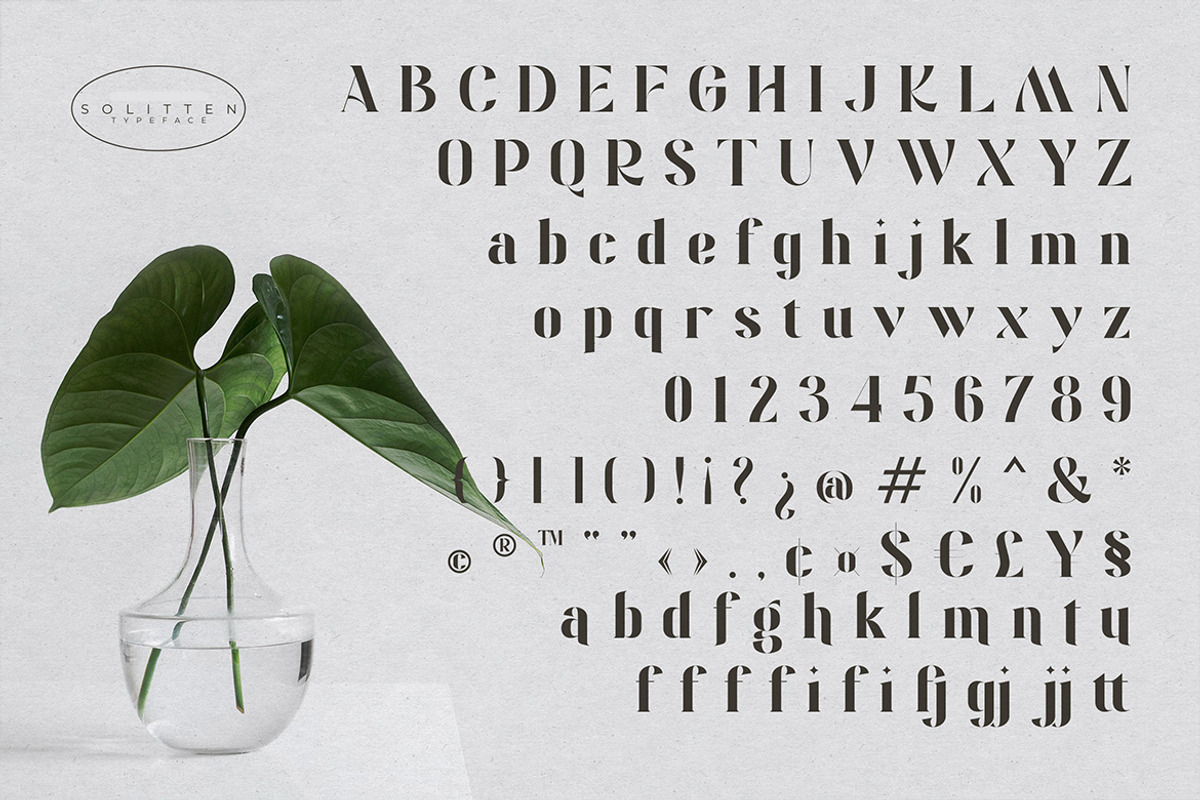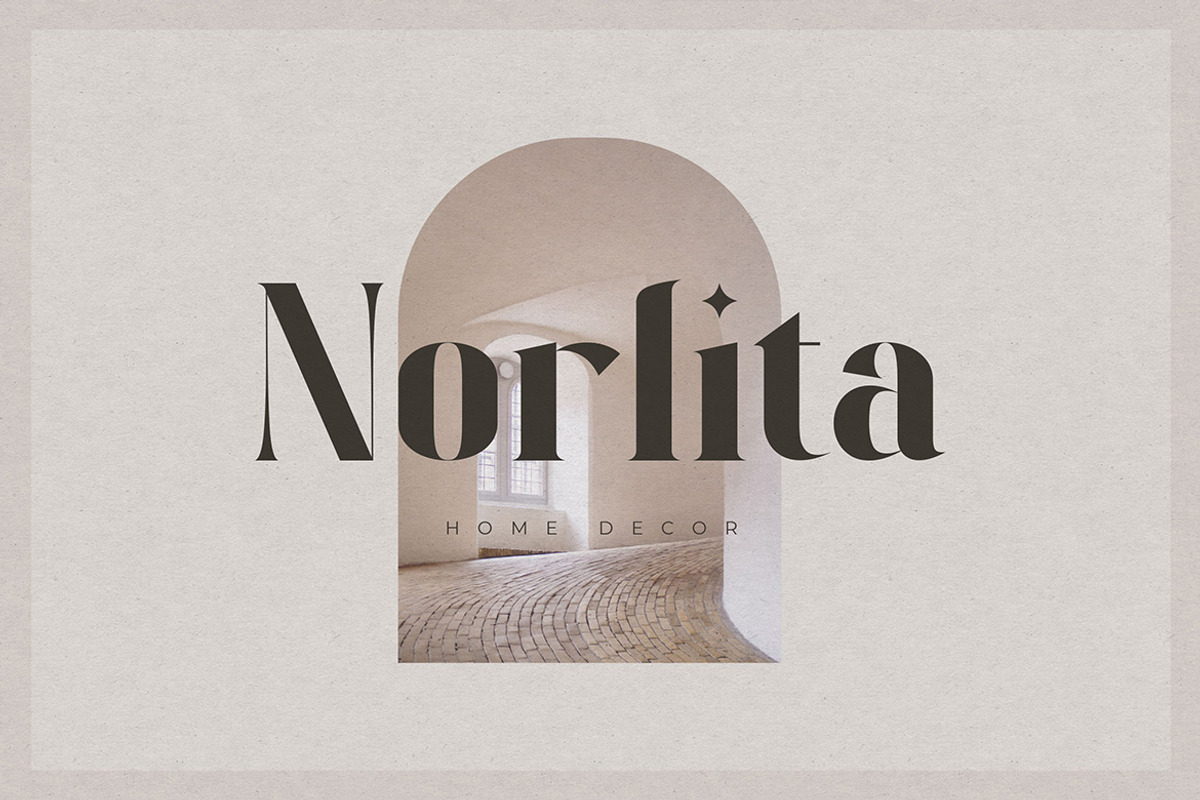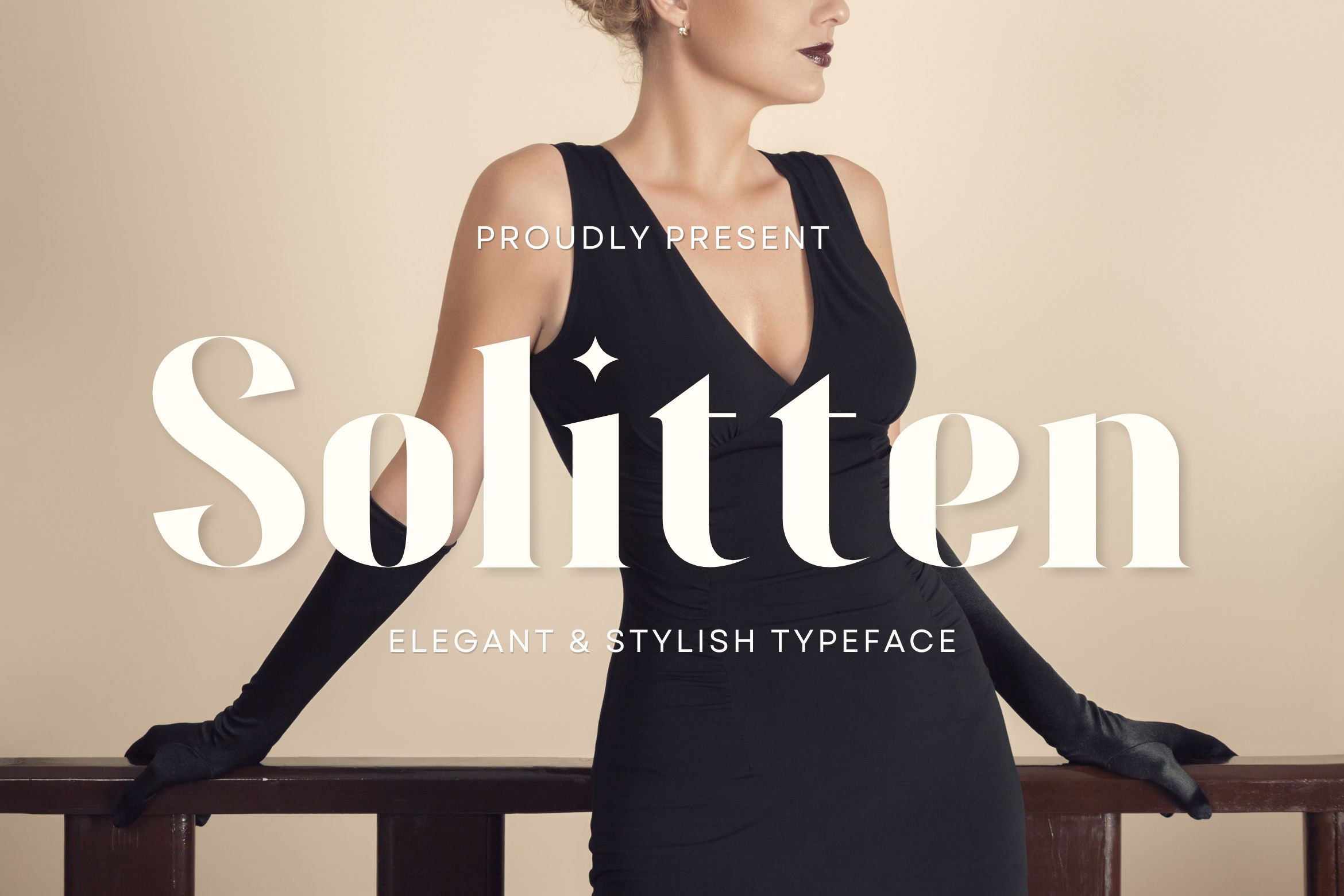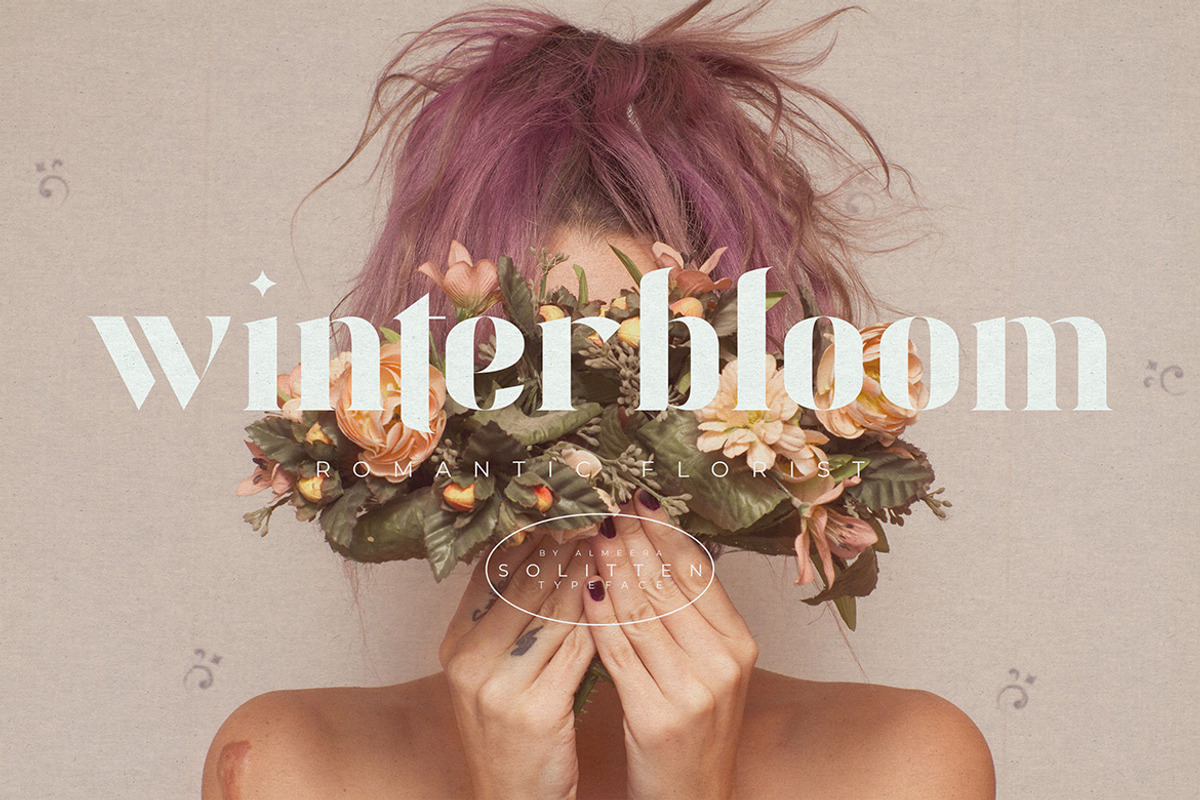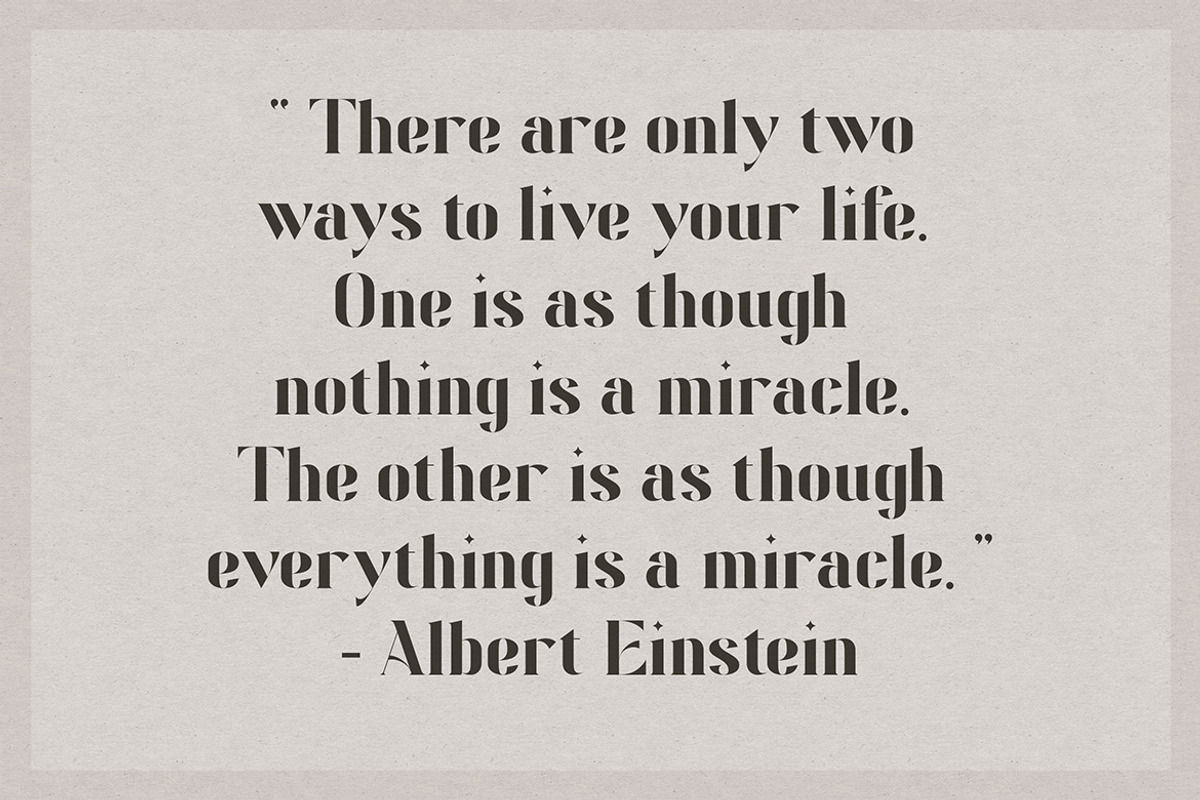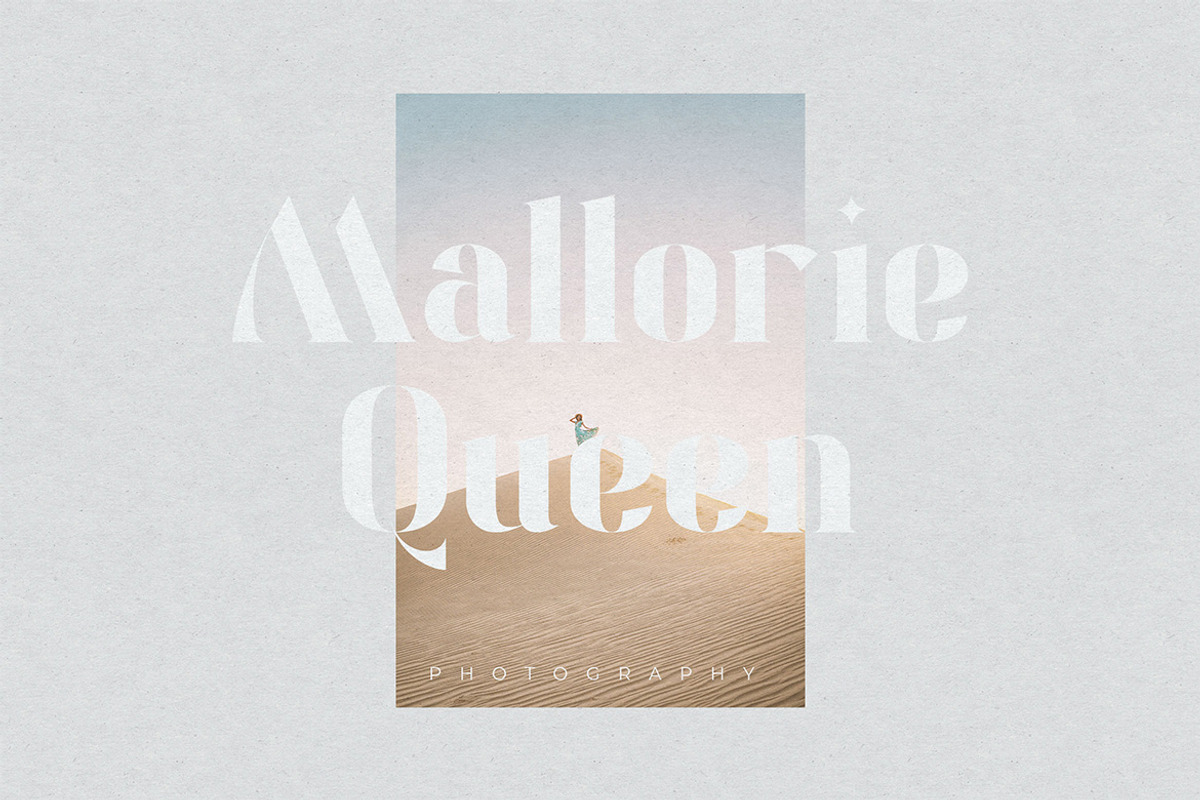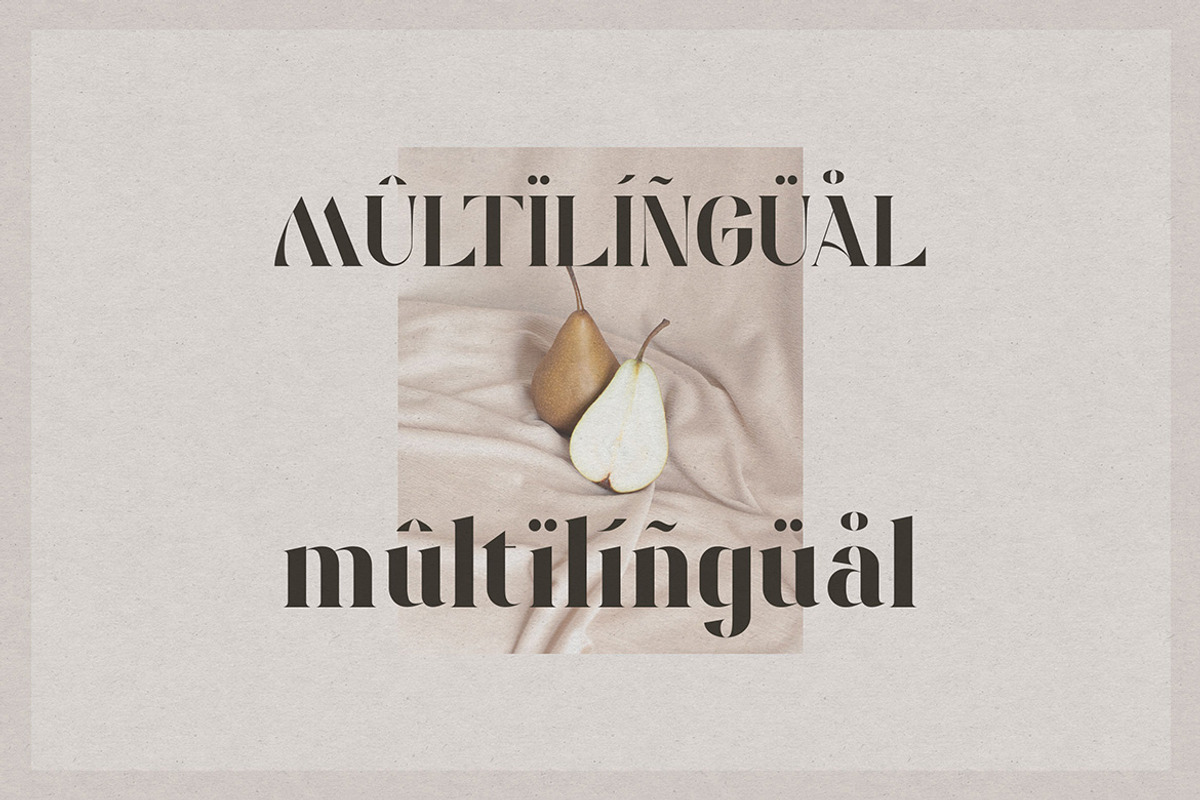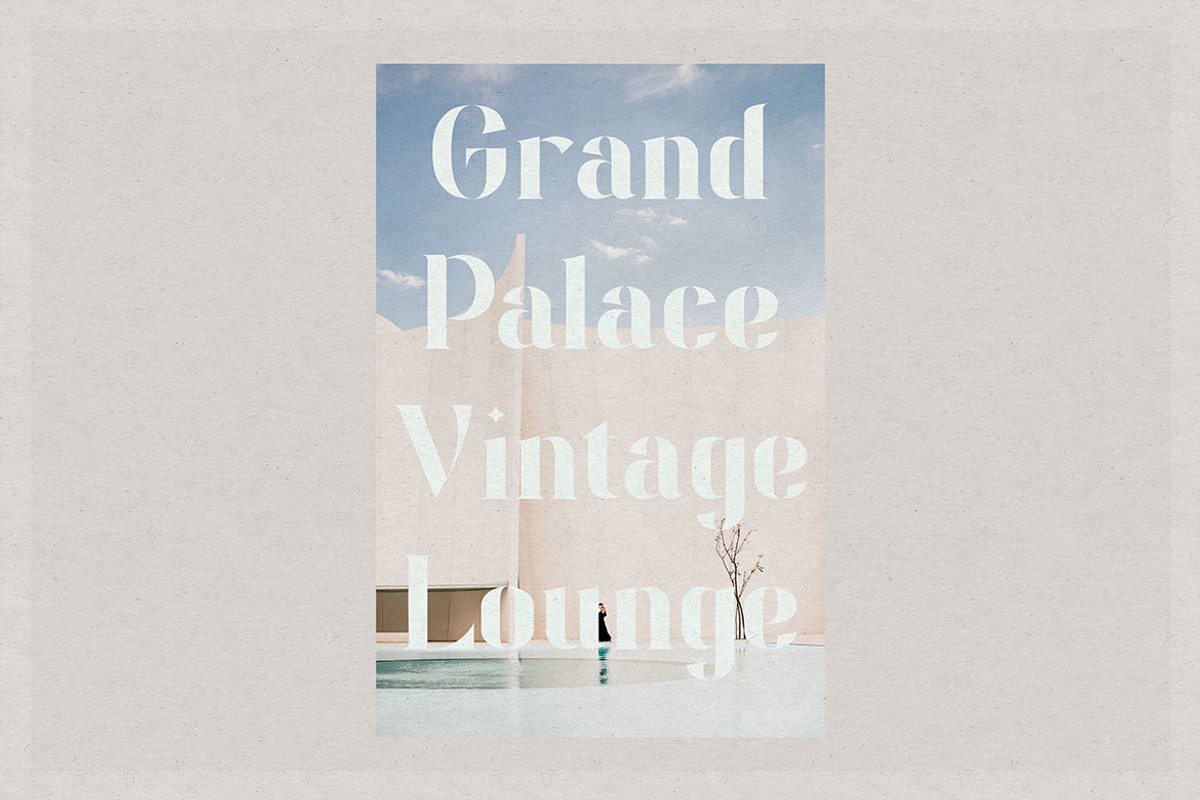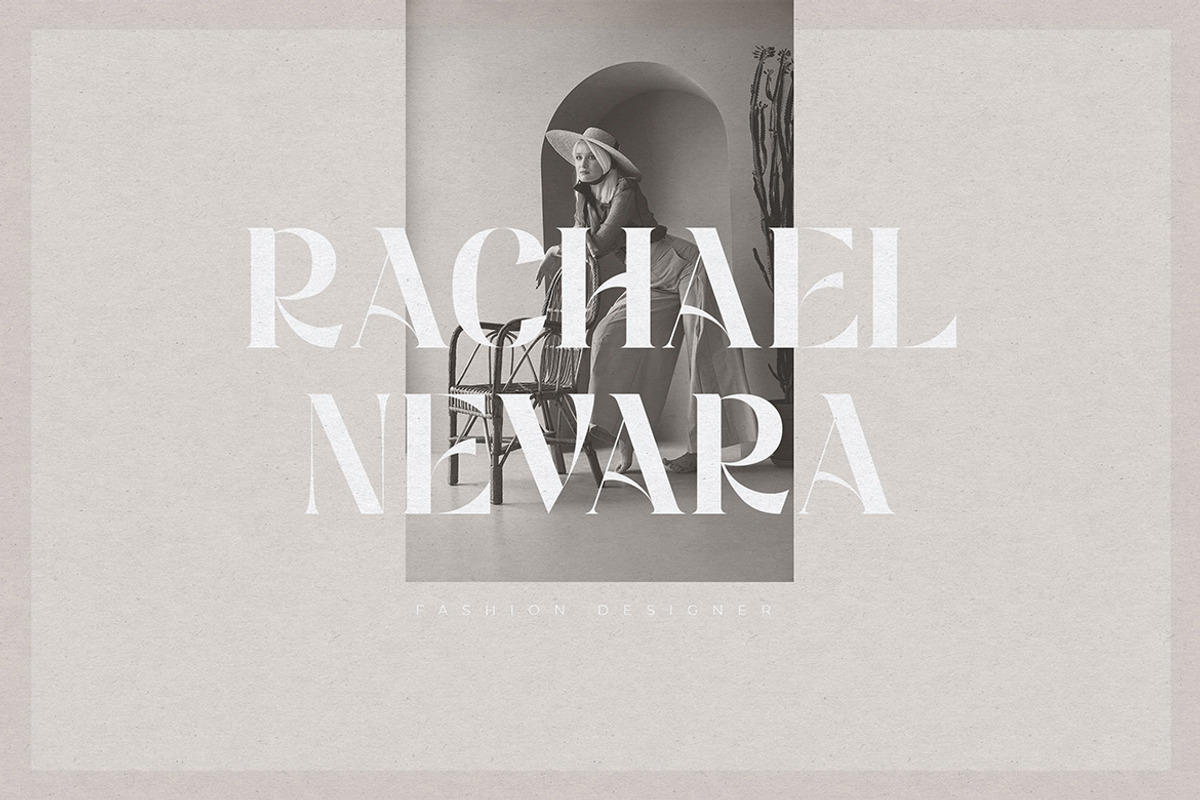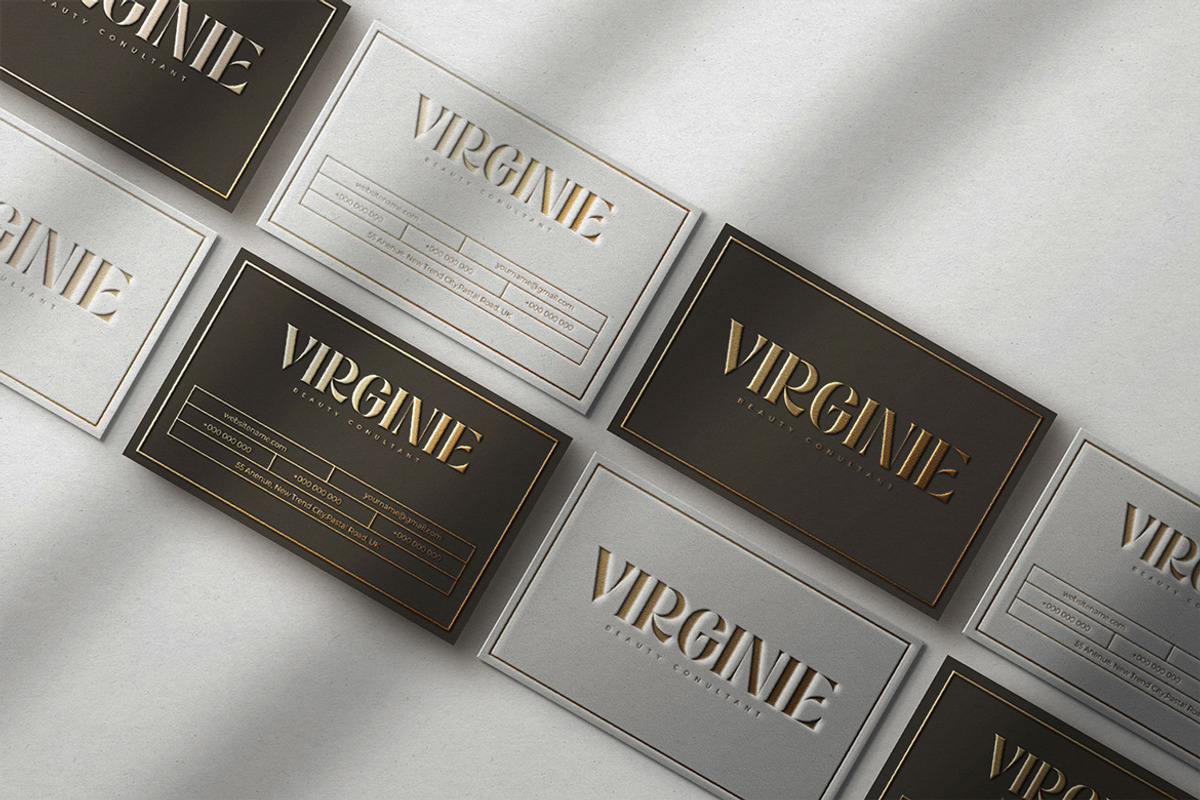
Solitten | Elegant Typeface
Introducing the new Solitten Typeface!!! Solitten Elegant & Stylish Typeface.This font is both modern and nostalgic and works great for logos, magazine, social media. Already matched up and ready to be used together for your next design!
For those of you who are needing a touch of elegant, stylish, classy, chic and modernity for your designs, this font was created for you!